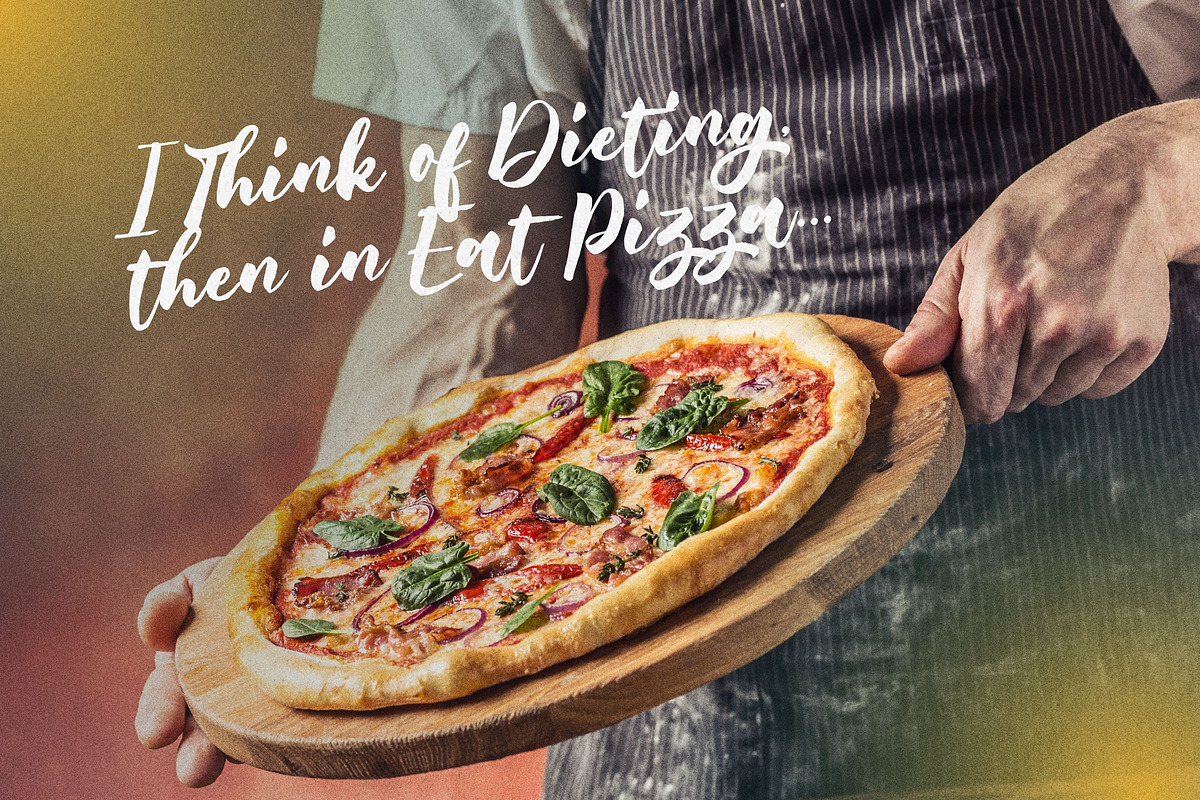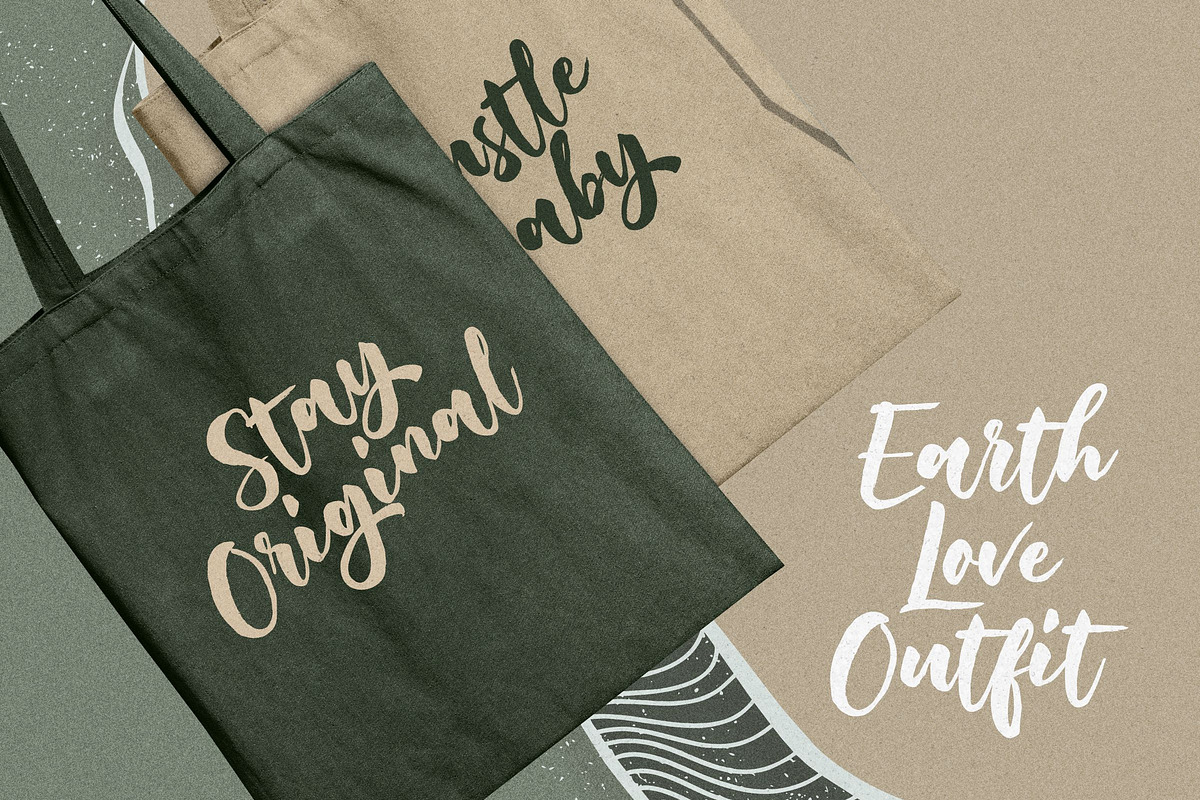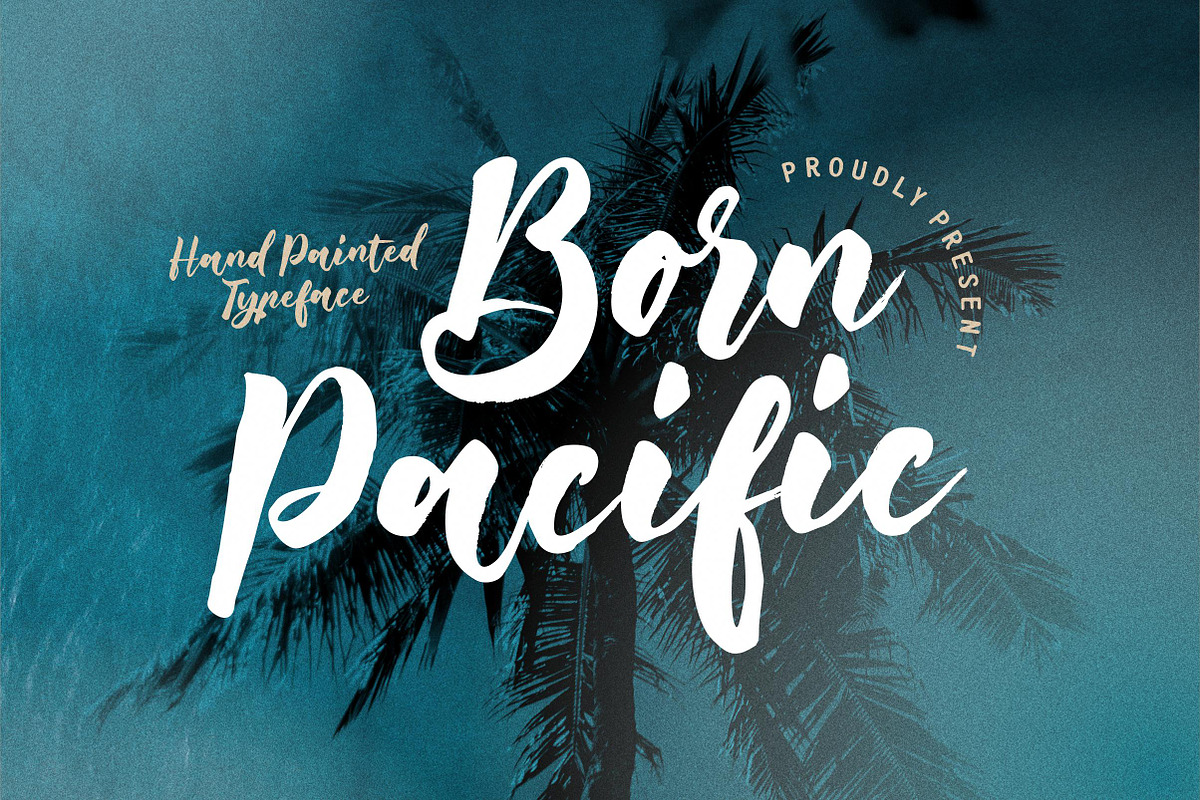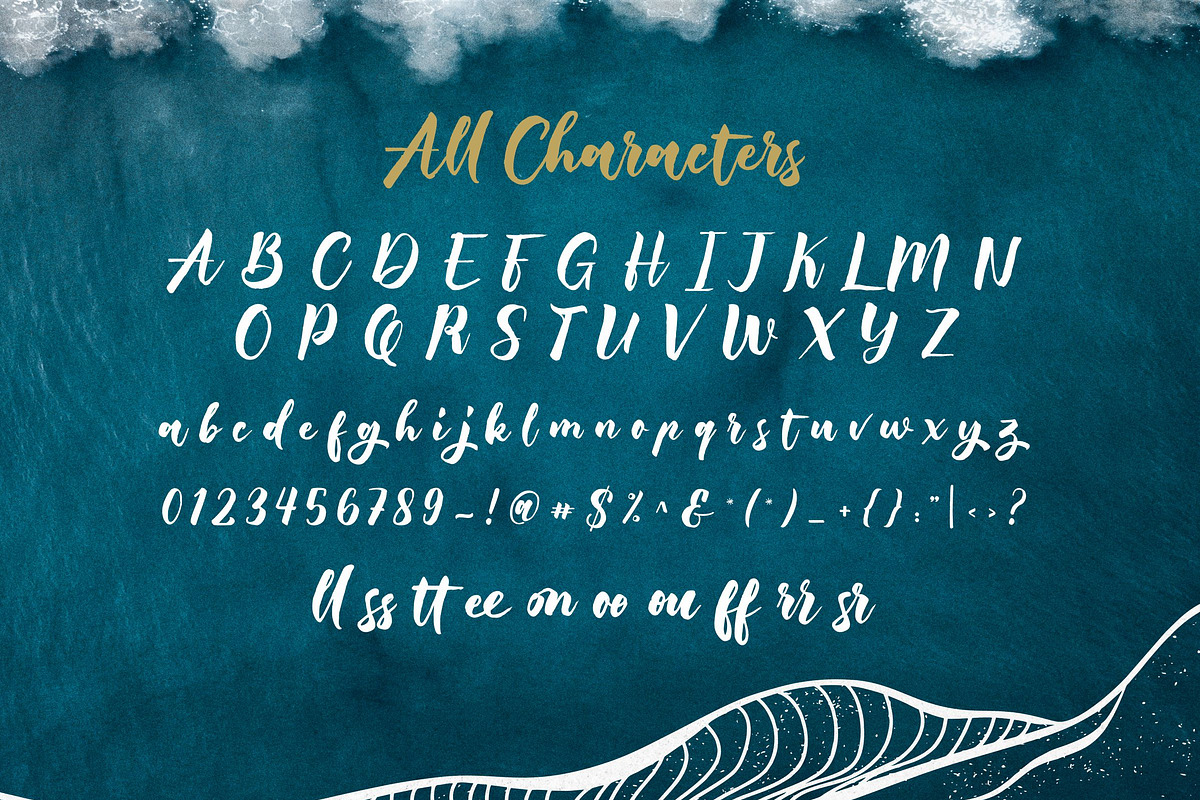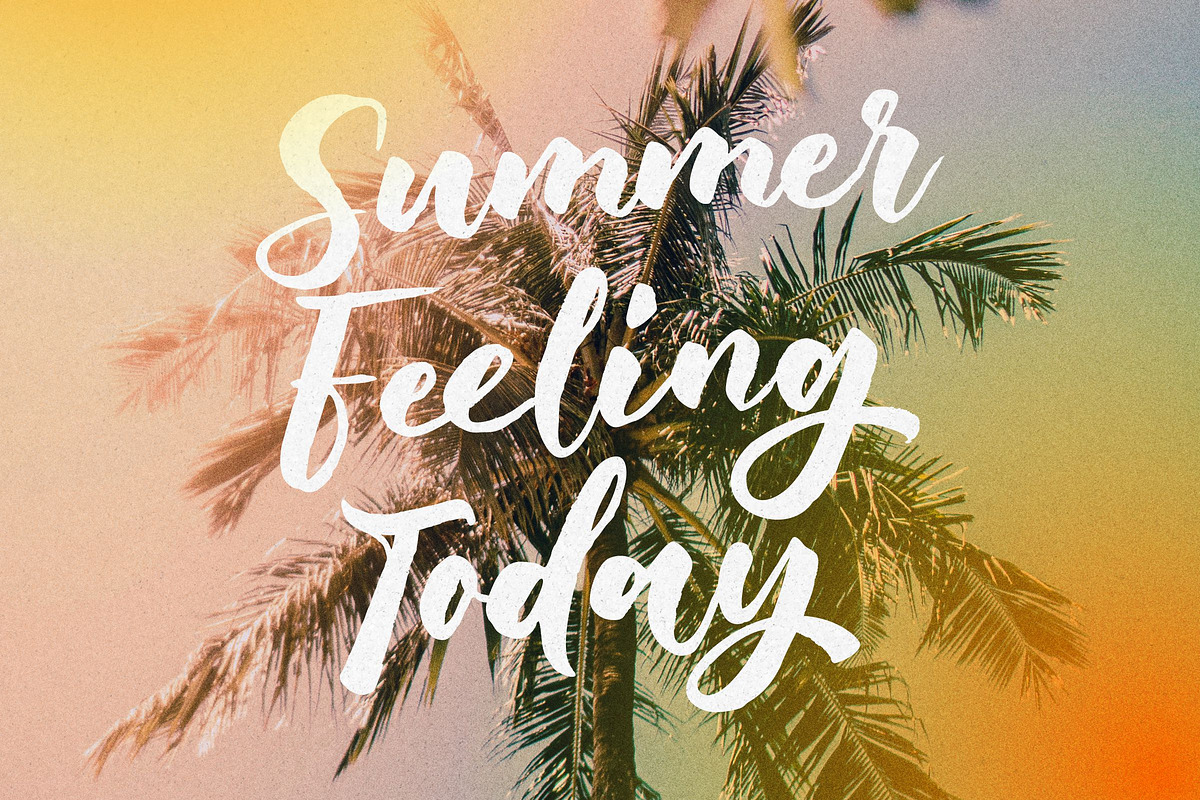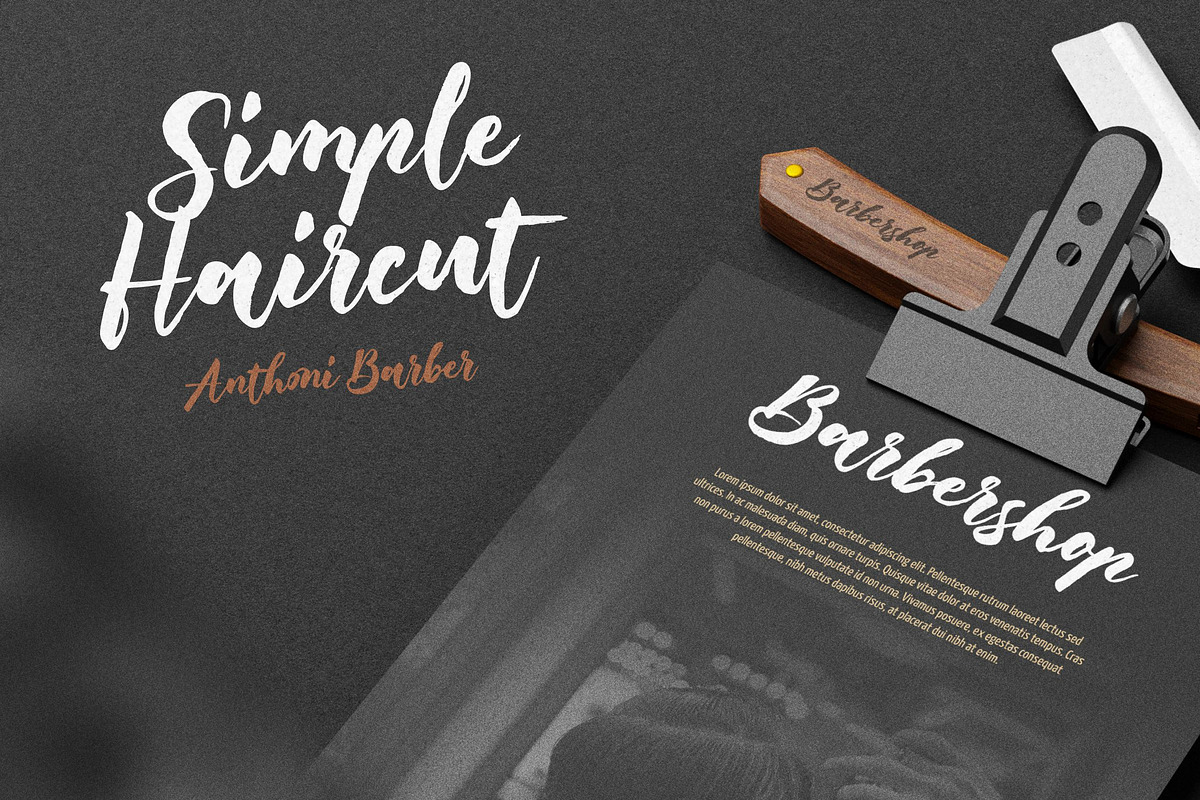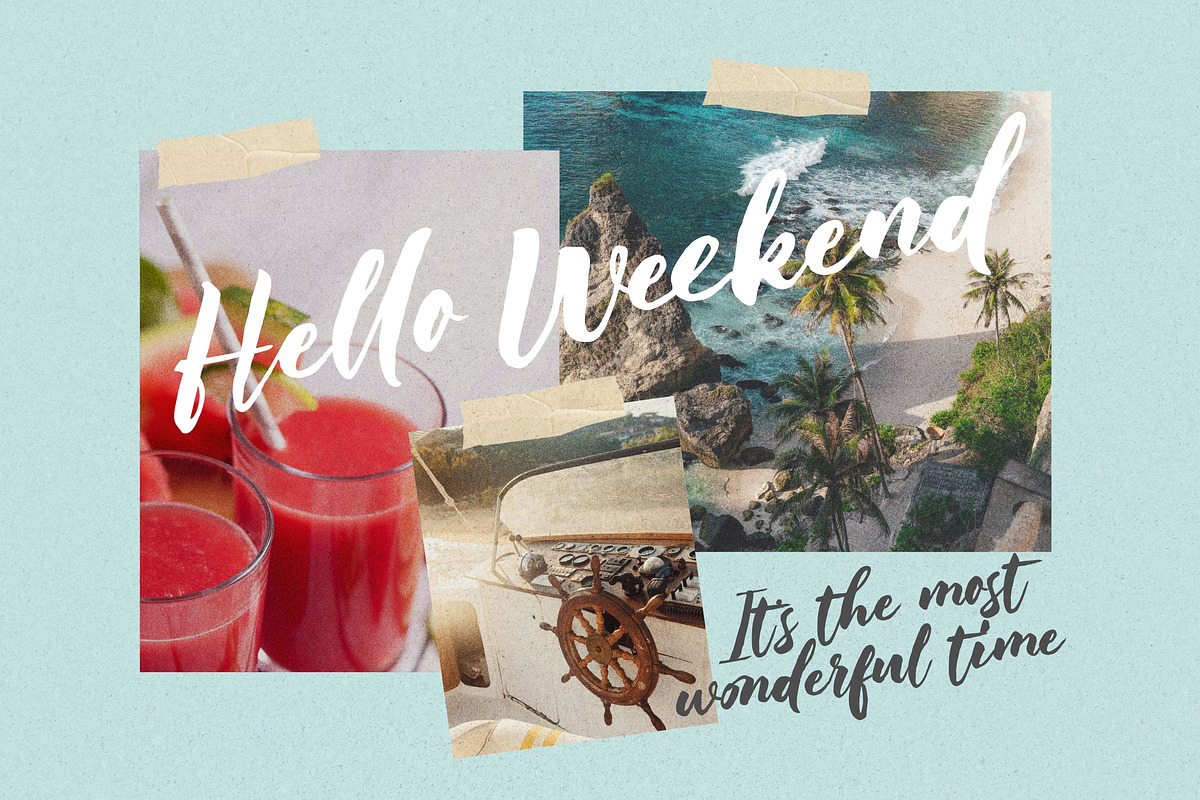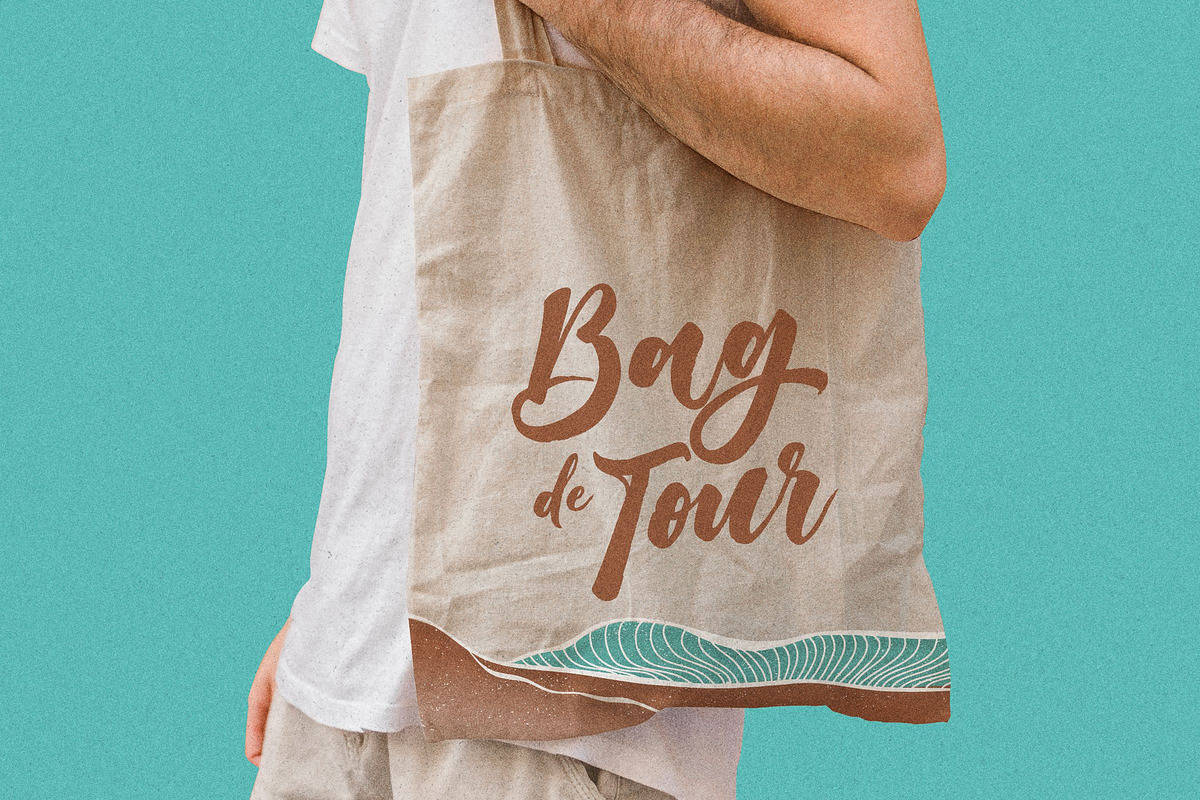
Born Pacific - Hand Painted
Born Pacific is a hand painted with brush solid effect that comes with a style that seems real. This font style inspired by natural goods and branded makes in many ways for your latest project.
Born Pacific is perfect for branding, photography, invitations, watermarks, advertisements, product designs, stationery, wedding designs, labels, product packaging, special events or anything that requires handwritten content.